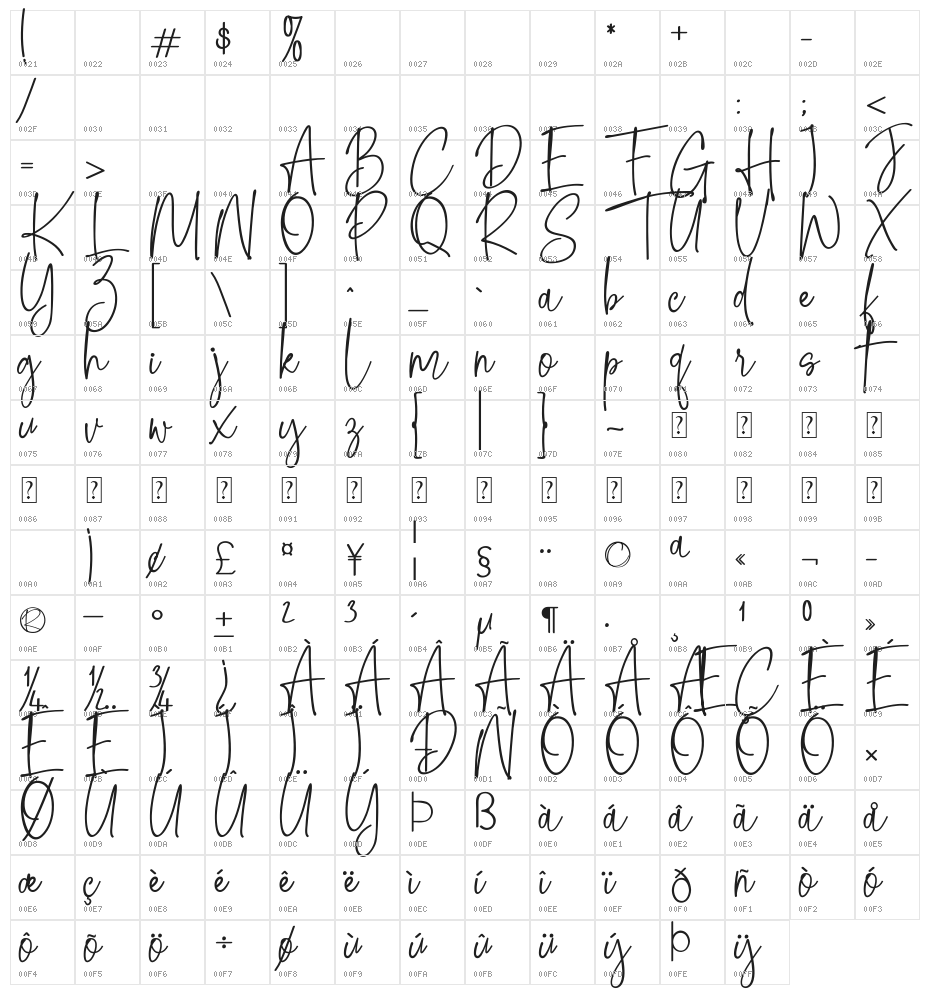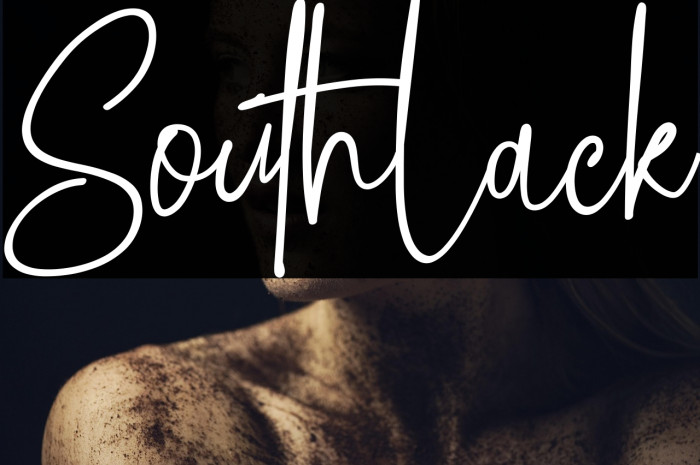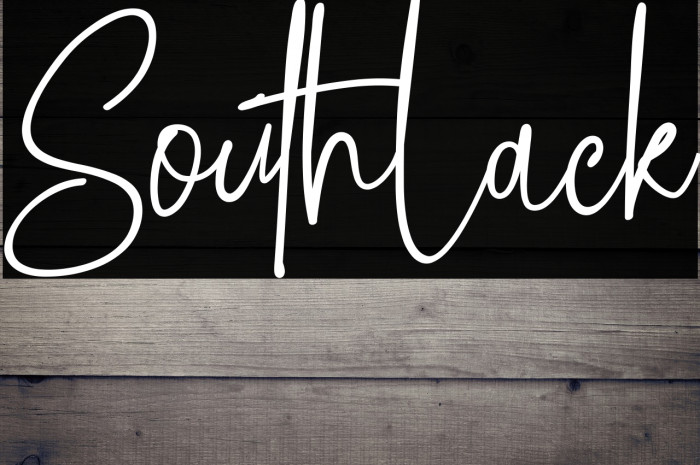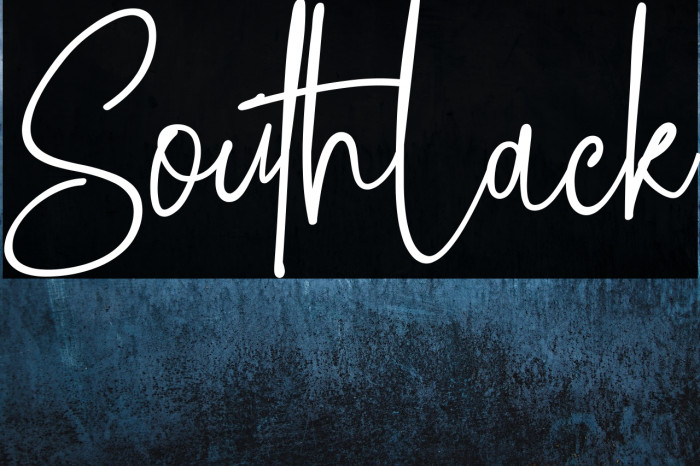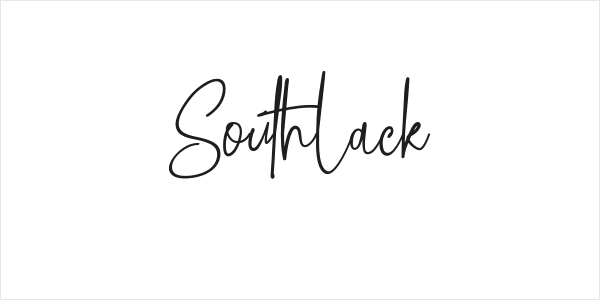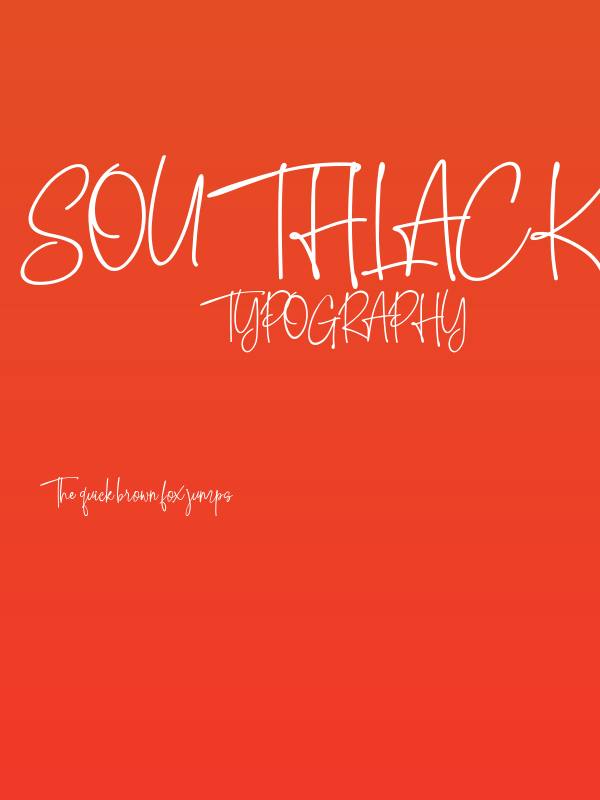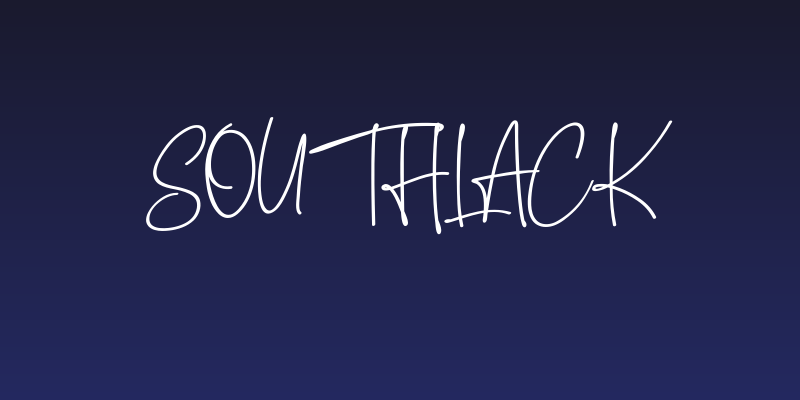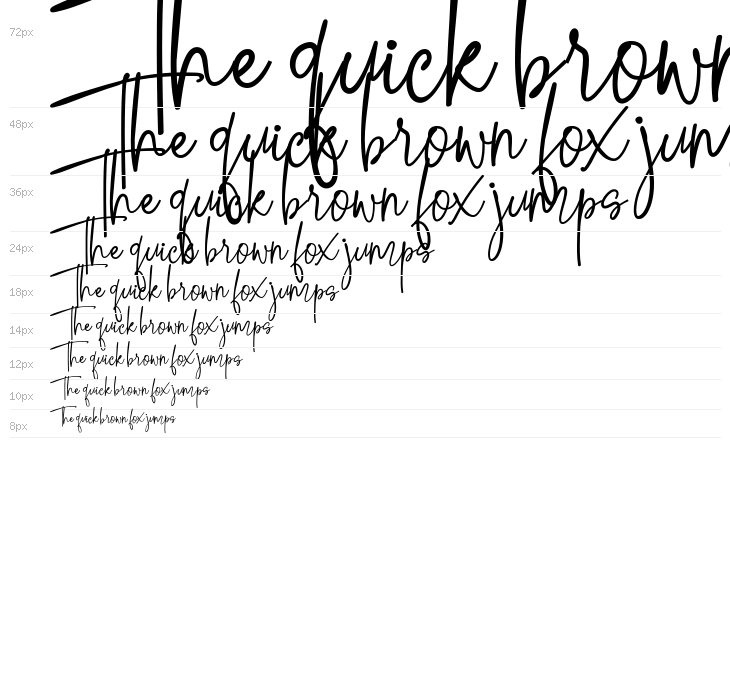
Southlack Font
Southlack Description
This font exudes a lively and dynamic energy with its handwritten style, characterized by fluid, sweeping strokes and a playful, informal appearance. The letters are interconnected, creating a sense of continuity and movement. The uppercase letters maintain a consistent height, while the lowercase letters vary in size, adding to the font's whimsical nature. The overall design is casual yet elegant, making it suitable for creative projects that require a personal touch. The special characters are integrated seamlessly, maintaining the font's cohesive aesthetic.
| Use Case | Logos, Headlines, Invitations |
| Proposed Projects | Ideal for greeting cards, invitations, personal branding, and creative social media graphics. |